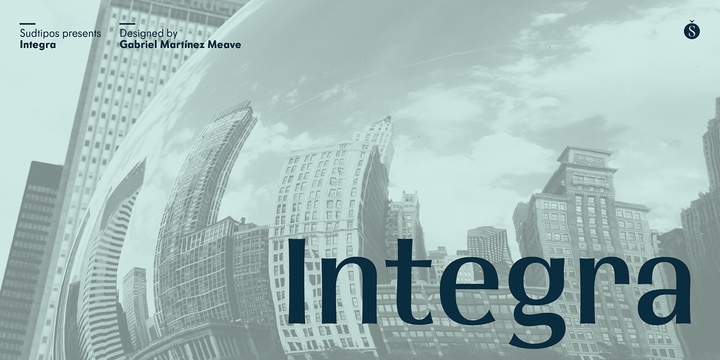
Integra Font
Integra Font is perfect for corporate branding, annual reports, architectural presentations, technical documentation, financial statements, legal documents, product packaging, website interfaces, mobile applications, and professional correspondence. This sophisticated typeface excels in business environments where clarity, professionalism, and trustworthiness are essential for effective communication.
Integra Font is exciting because it seamlessly blends traditional serif elegance with modern functionality. Its carefully crafted letterforms feature subtle curves and precise angles that create a sense of reliability and innovation. The font's exceptional readability at various sizes makes it ideal for both extensive text blocks and impactful headlines. Its balanced character spacing and optimized x-height ensure comfortable reading experiences across digital and print media.
The Integra Font family includes comprehensive weight variations: Thin, Light, Regular, Medium, SemiBold, Bold, and ExtraBold, each available in both Roman and Italic styles. This extensive range provides designers with fourteen distinct options, allowing for sophisticated typographic hierarchies and nuanced visual communication. The consistent design language across all weights maintains brand coherence while offering maximum flexibility.
Professional designers choose Integra Font for its versatility in corporate communications. The font's authoritative presence commands respect in formal documents while remaining approachable in marketing materials. Its refined details and consistent stroke modulation create visual harmony that enhances brand credibility and professional presentation standards.
The sophisticated character of Integra Font reflects contemporary design sensibilities while honoring typographic traditions. Its subtle personality makes it suitable for diverse industries including finance, technology, healthcare, and consulting services. The font's neutral yet distinctive appearance helps organizations communicate competence and reliability to their target audiences.